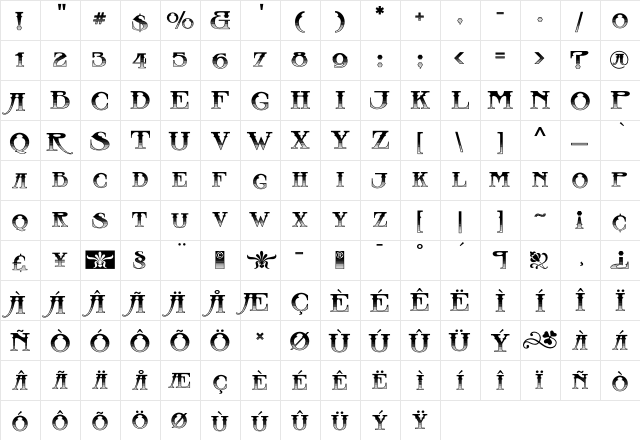
Castaway Inline v2 Regular
| Foundry | Steve (Sleepy Gecko) Harrison |
| Designer | Dan X Solo revival by Steve (Sleepy Gecko) Harrison |
Design Context for Castaway Inline v2 Typeface
Castaway Inline v2 brings ornamental detail and strong personality to headlines and identities, where visual impact matters more than quiet functionality.
Font Pairing: Pair with a clean neutral sans-serif for body copy to let Castaway Inline v2's character lead without overwhelming the composition.
Pro Tip: Use Castaway Inline v2 exclusively at display sizes — it was designed to be seen, not read at length. Let a neutral companion handle body copy.